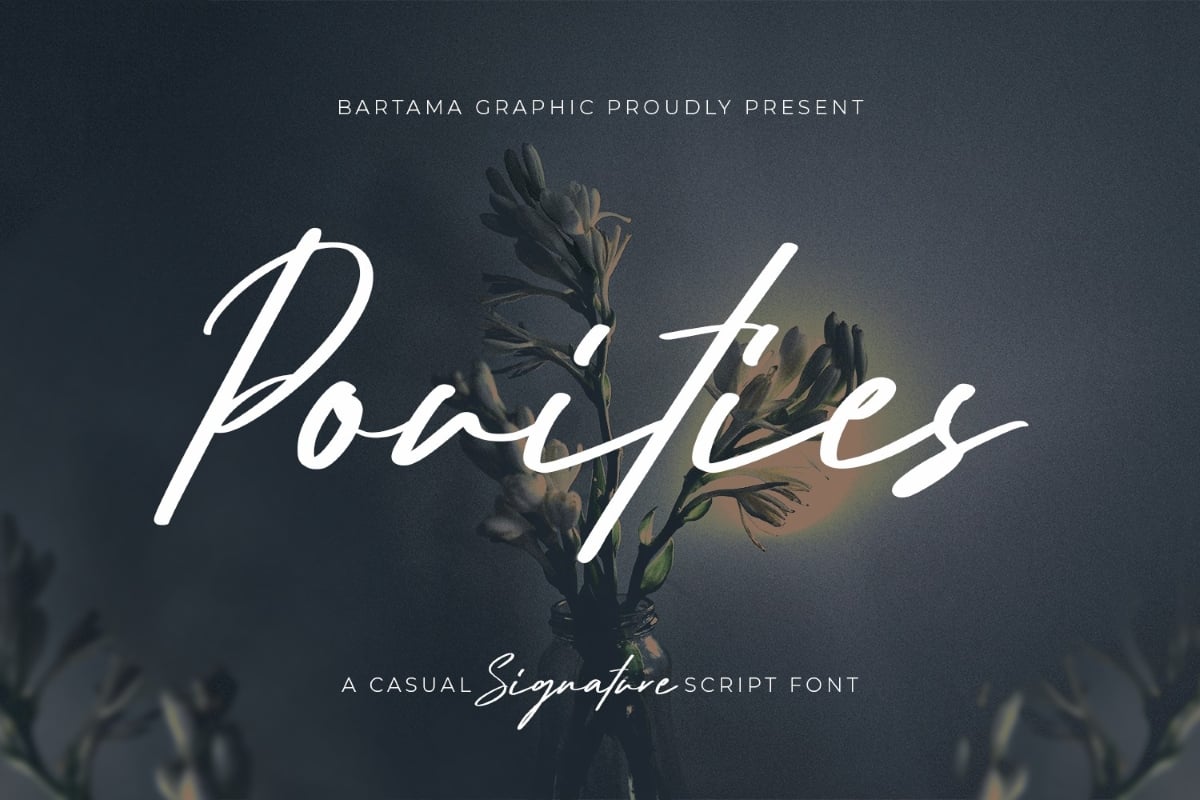
Pouities - Script Font
Pouities is a casual signature script font. Created with classy, simple, elegant, and artistic looks, perfect for your design needs.